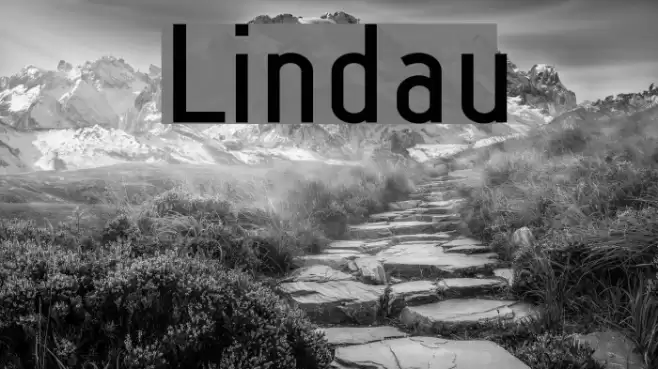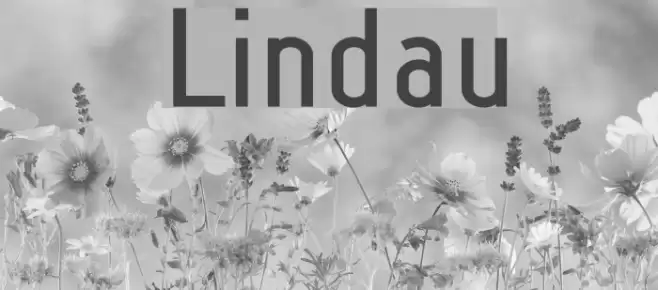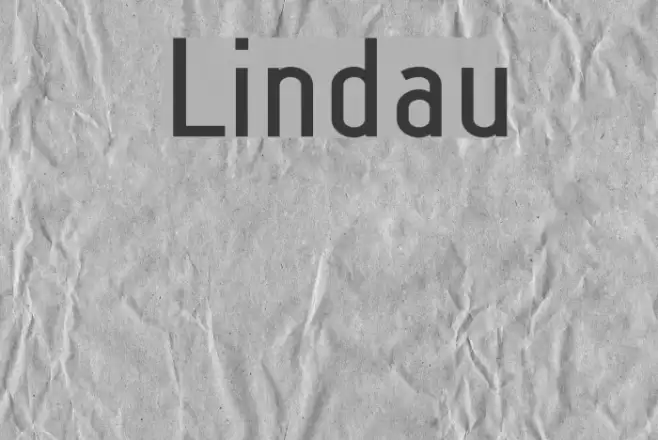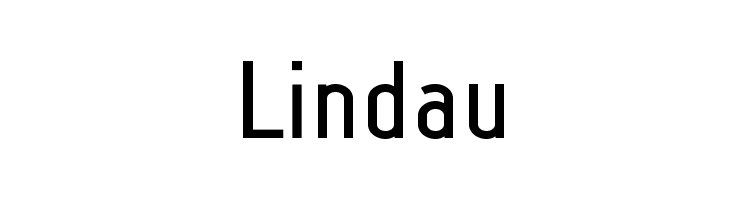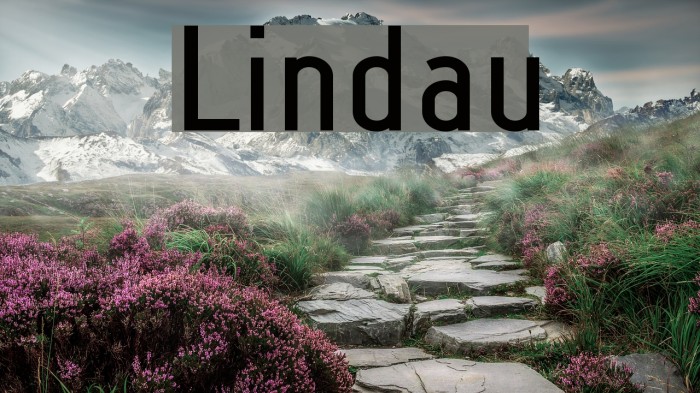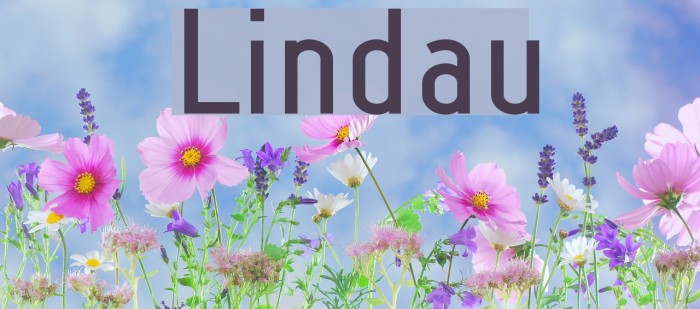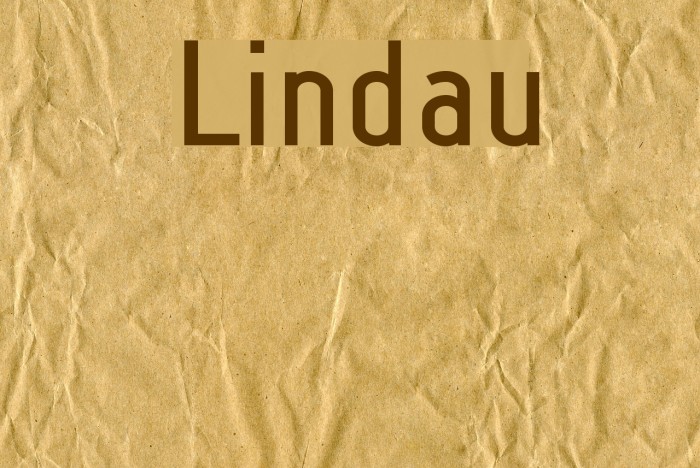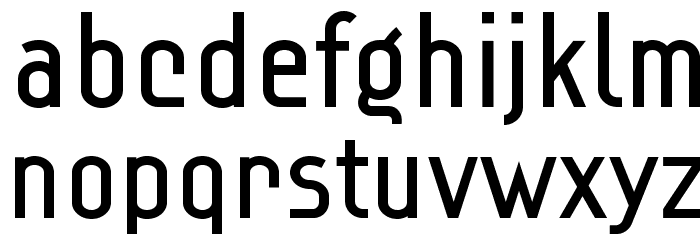
Lindau Font
Lindau Description
This font features a clean and modern sans-serif design with a geometric structure. The characters are well-balanced, with consistent stroke widths that provide a uniform appearance. The uppercase letters are bold and commanding, while the lowercase letters maintain a smooth and approachable look. The numerals are clear and easily distinguishable, making them suitable for various applications. Special characters are included, offering versatility for different types of content. The overall design is minimalistic, making it ideal for contemporary projects that require a sleek and professional aesthetic.
A modern, geometric sans-serif font with a clean and minimalistic design from Sans Serif fonts.
- Proposed Projects: Ideal for branding, web design, advertising, and editorial projects that require a modern and professional look.